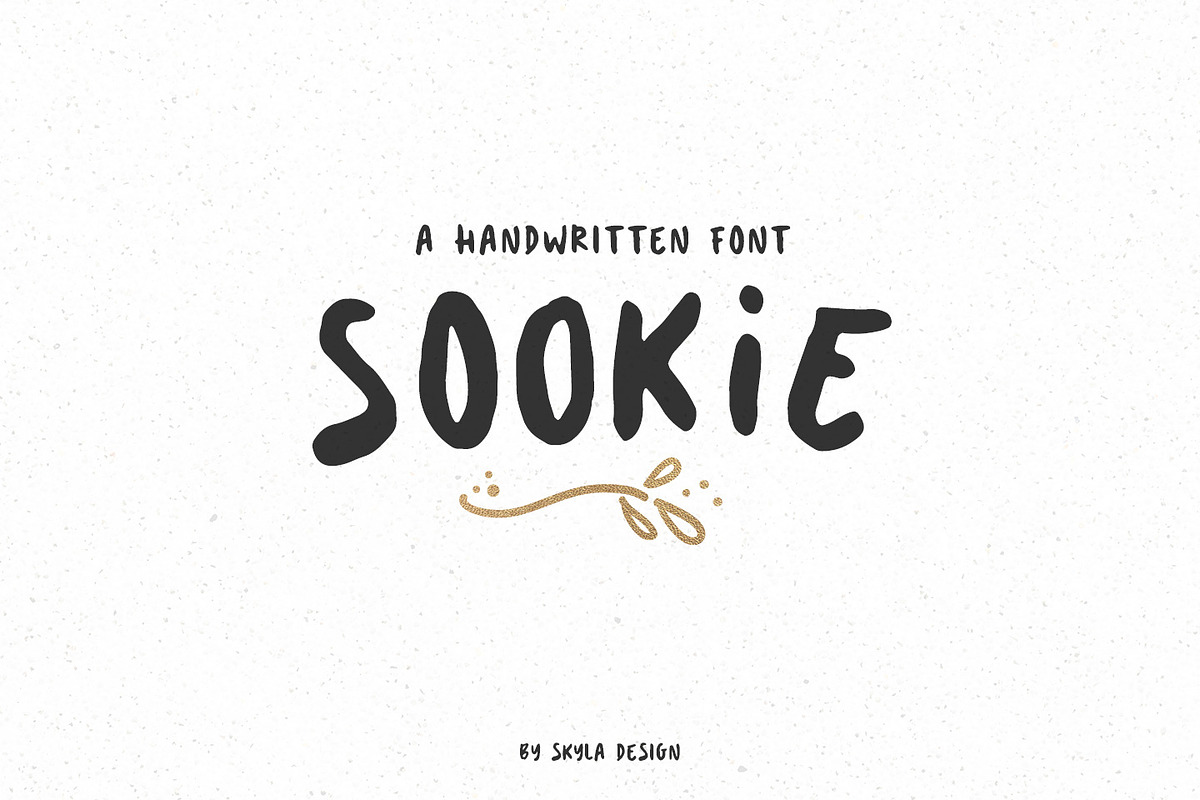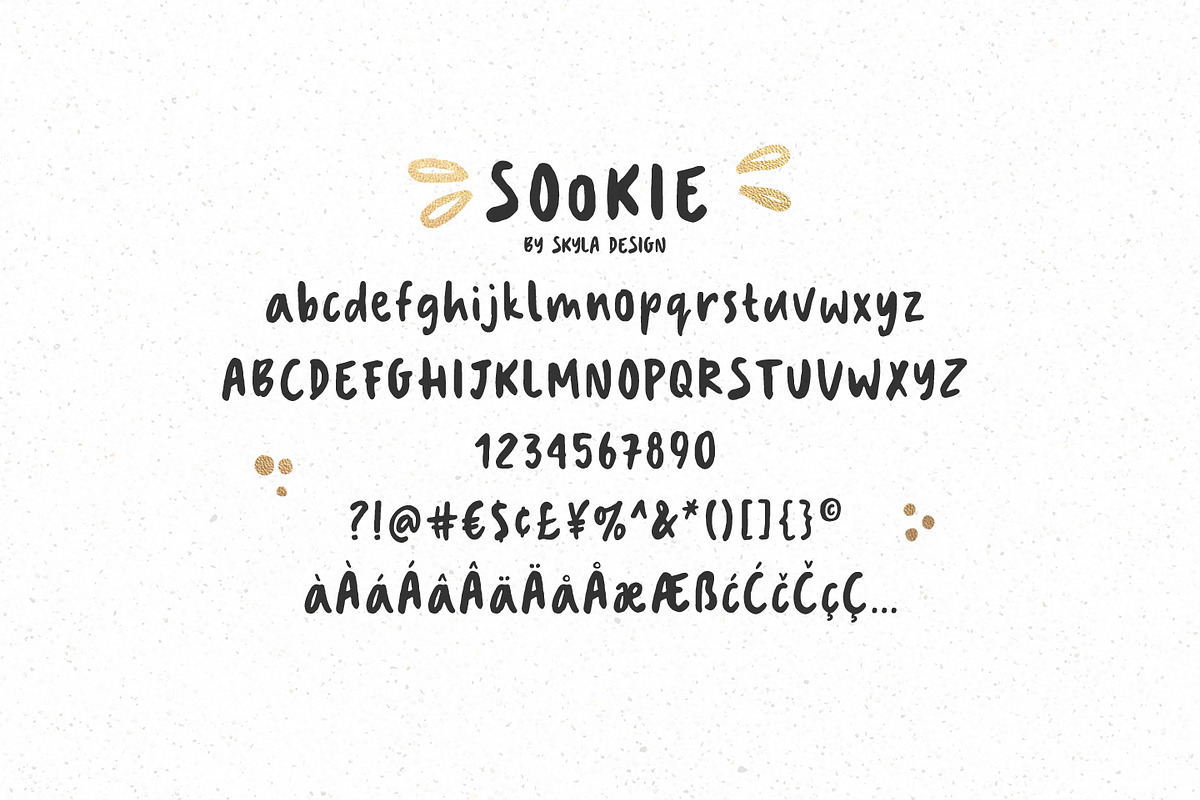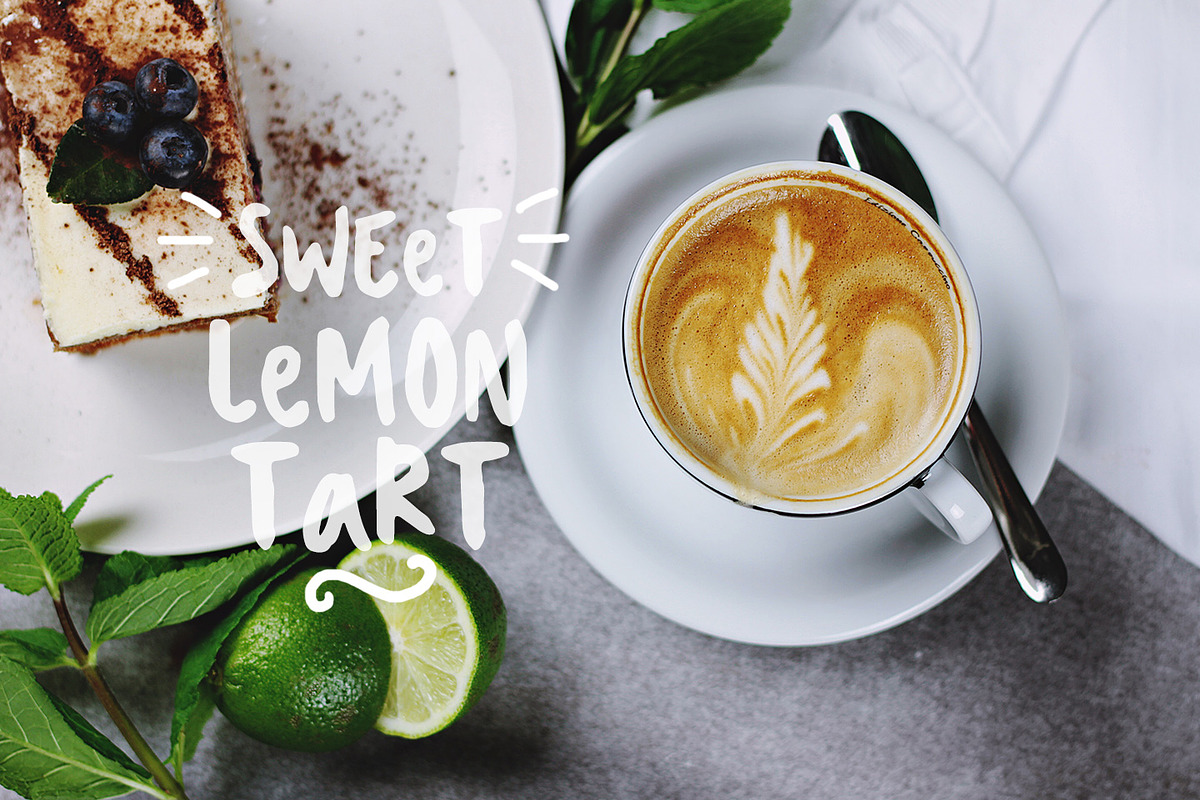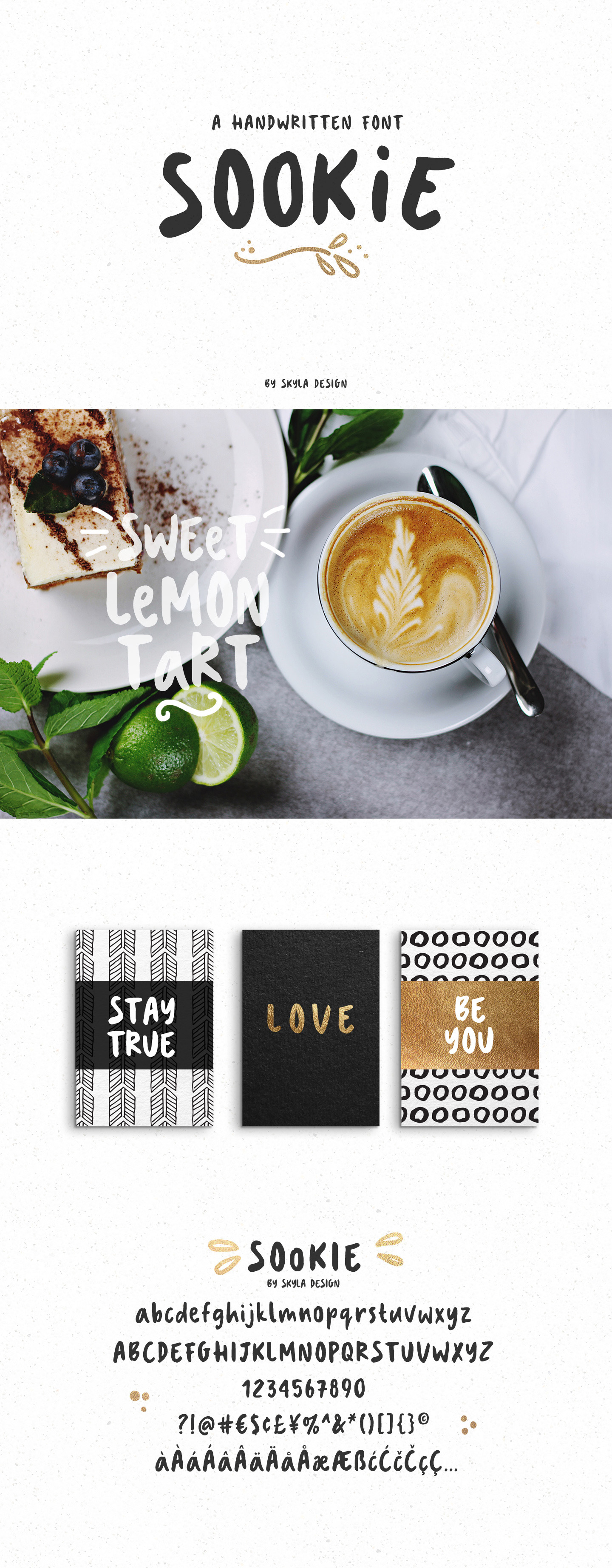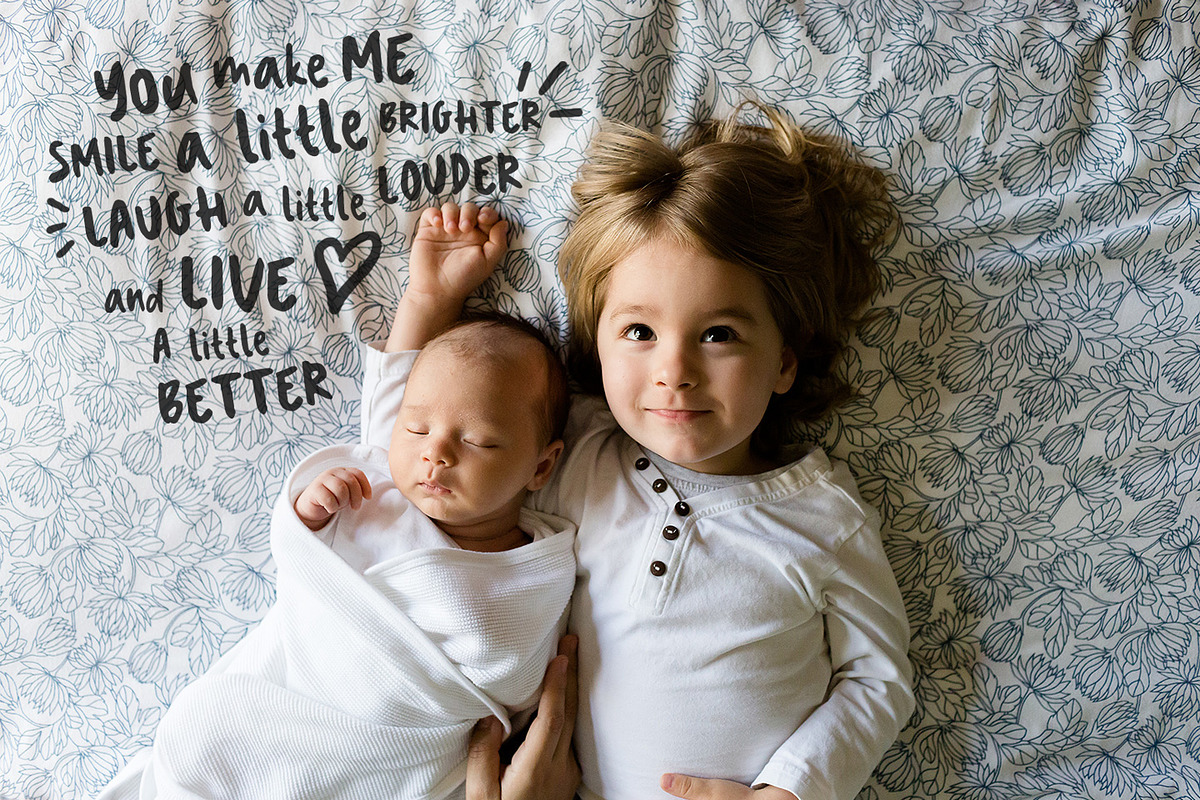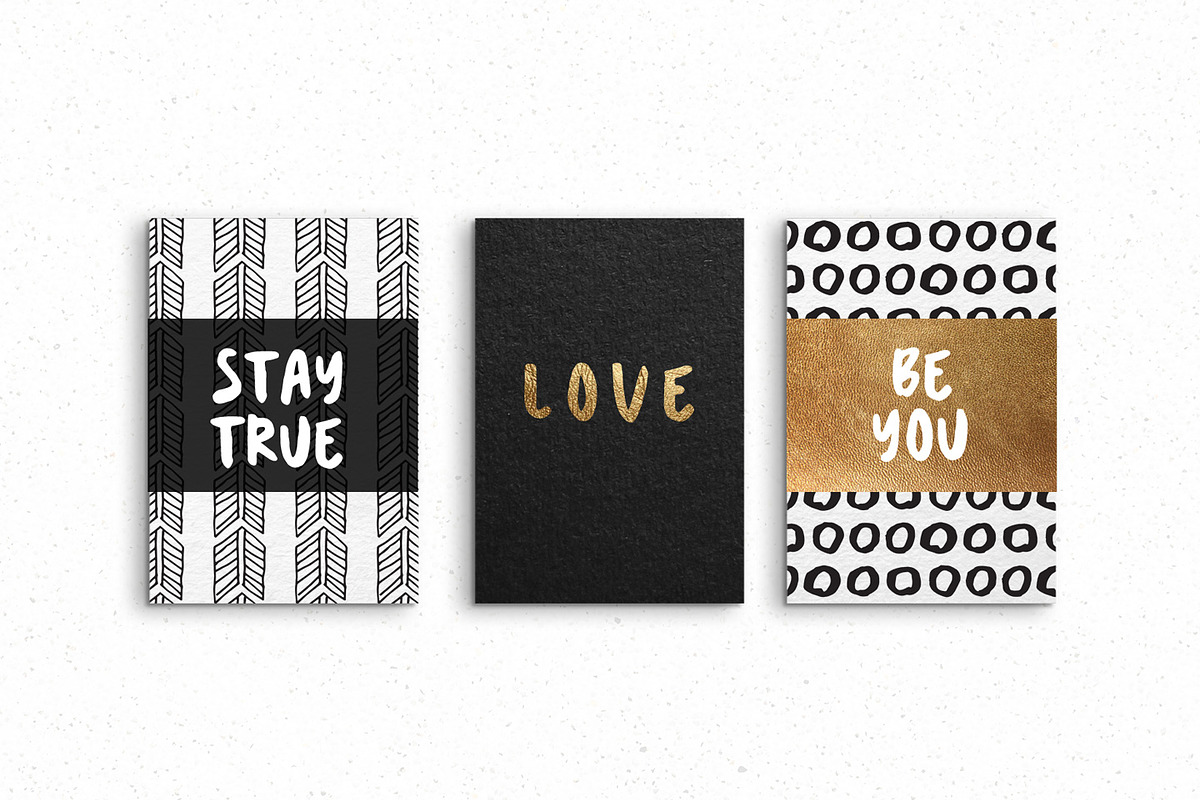
Sookie cute handwritten font
SOOKIE is a cute, handwritten font. This playful sans-serif will look so good on your invites, cards and any other fun projects you are working on.